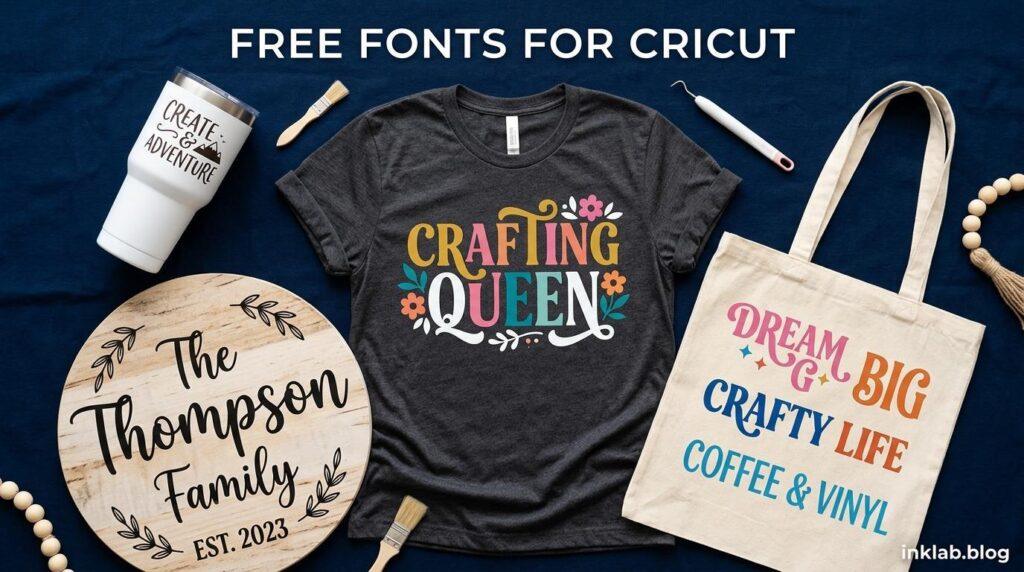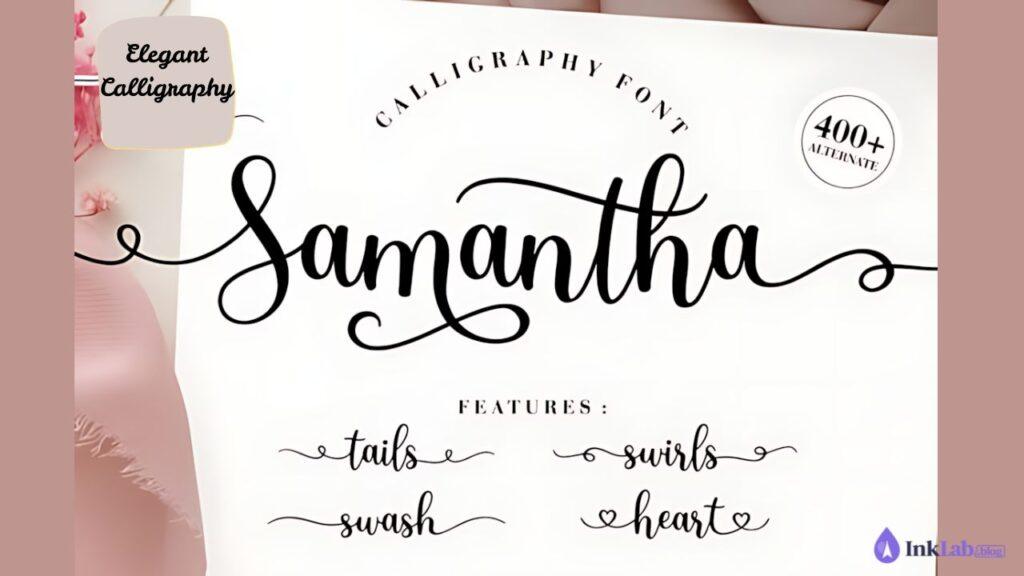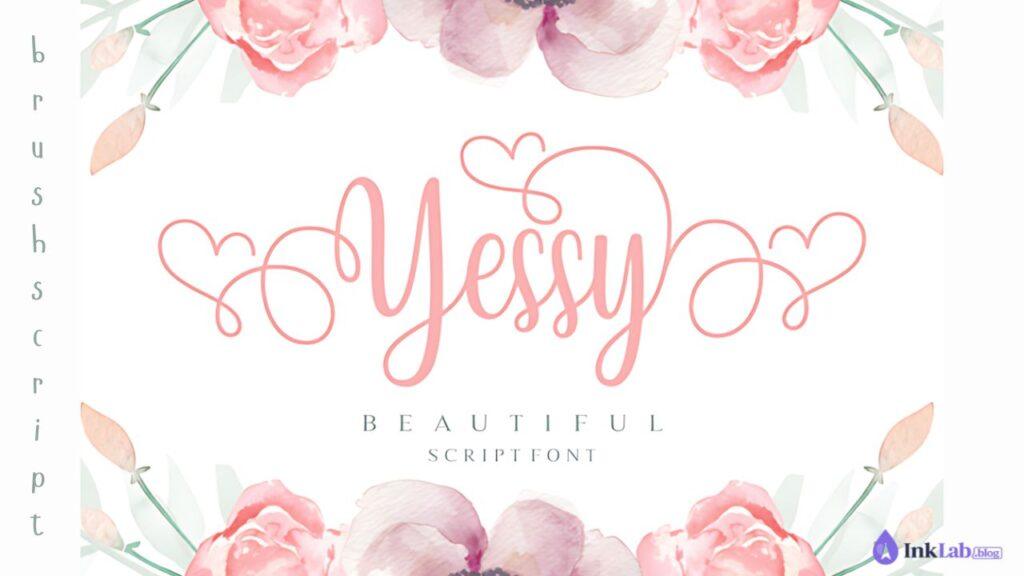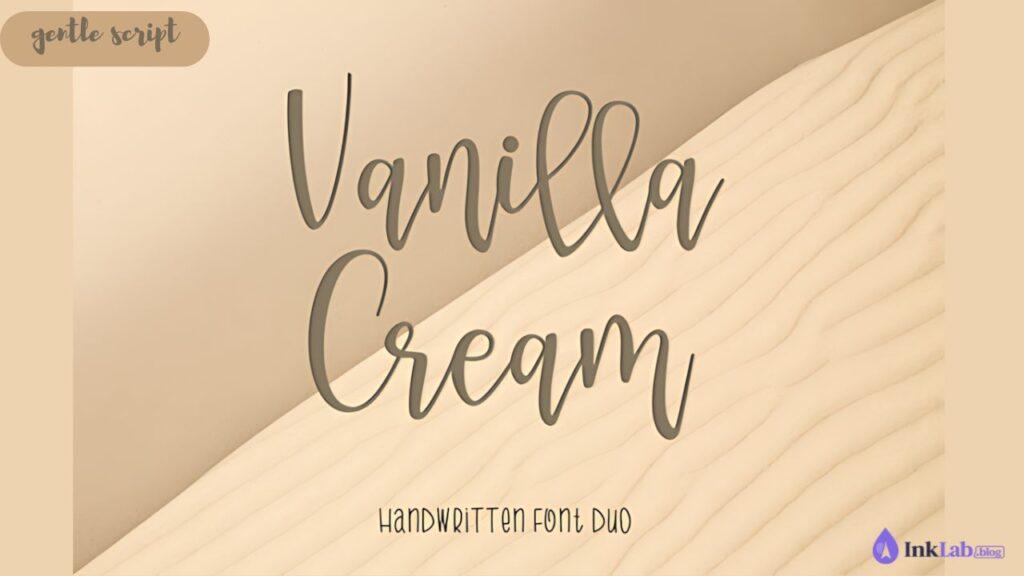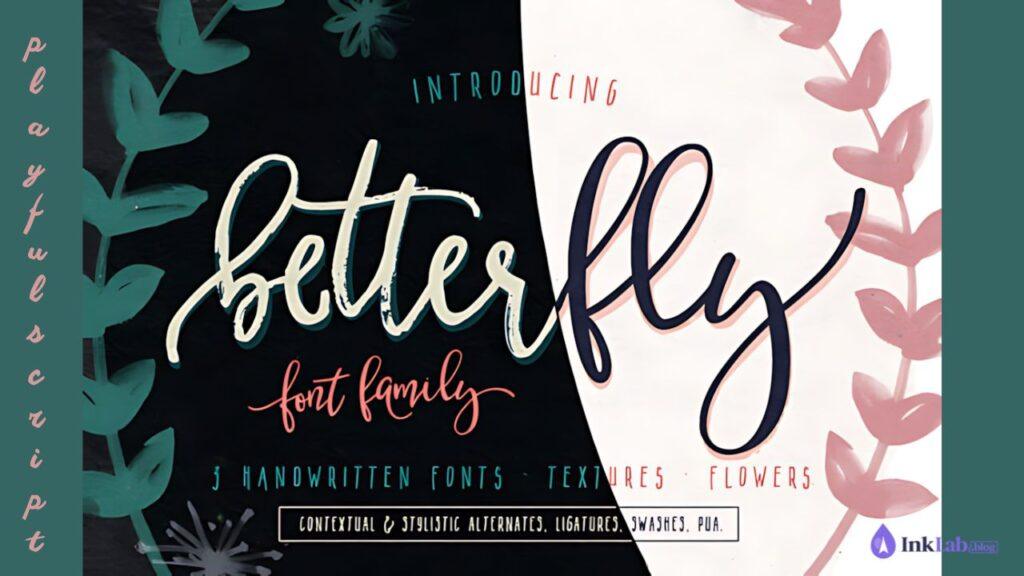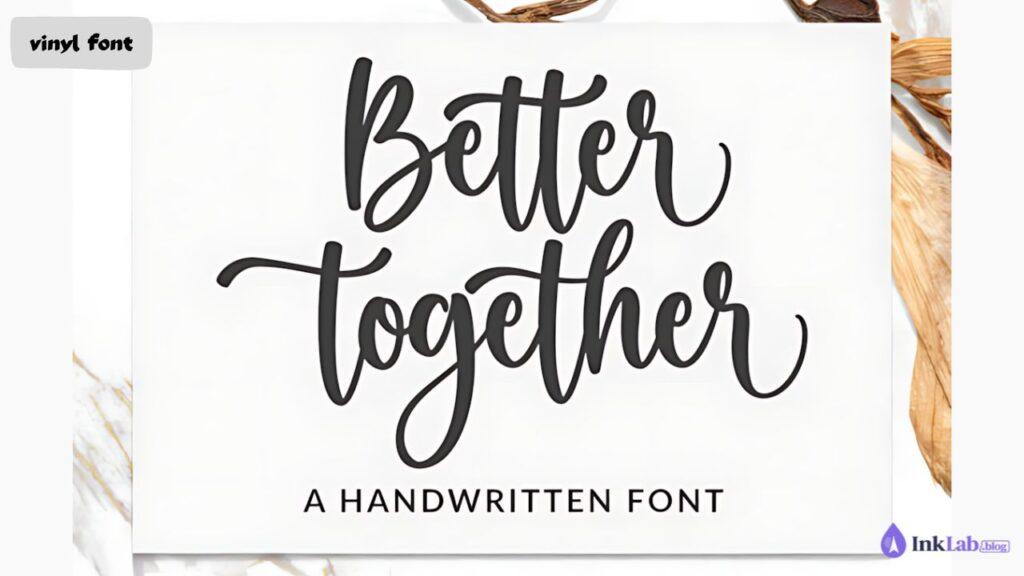
Best Fonts for Cricut: Top 10 Free & Premium Picks
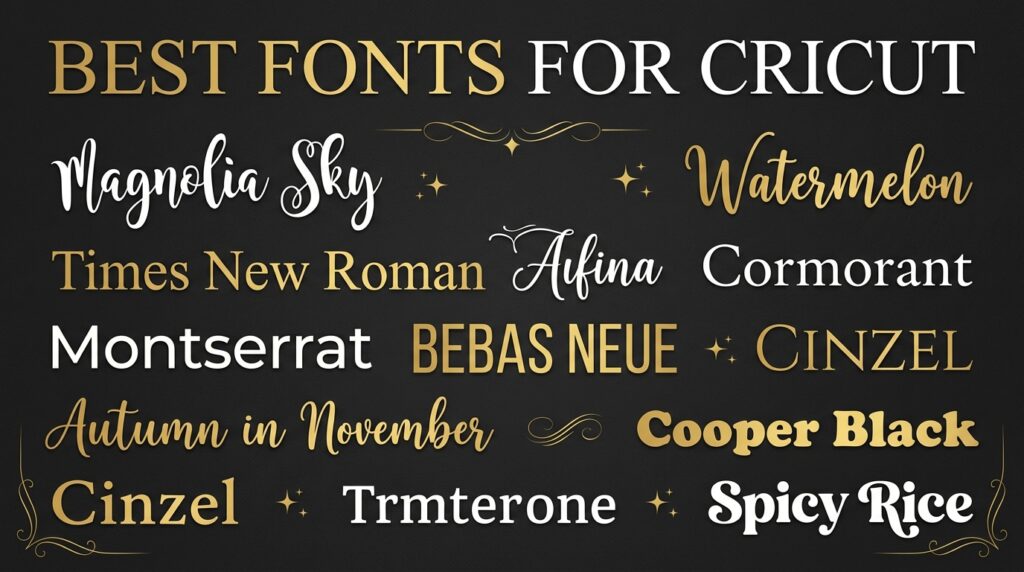
Cricut projects live or die by the font you choose. Whether you’re cutting vinyl, making HTV shirts, or crafting personalized gifts — the right font makes all the difference. Here are the 10 best fonts for Cricut that cut cleanly, weld beautifully, and look amazing on any project.
What Makes a Good Font for Cricut Projects?
Not every font cuts well. The best fonts for Cricut have:
• Thick, consistent strokes — thin hairlines break during cutting and are hard to weed
• Clean paths — Cricut Design Space needs clear vector outlines, not overlapping shapes
• Weld-friendly letterforms — script fonts should connect naturally when welded
Pro tip: For script fonts, always use the Combine > Unite (or Weld) tool in Cricut Design Space to join touching letters into one continuous cut path before cutting.
Top 10 Free Fonts for Cricut
01 · Best Overall Cricut Font
Bebas Neue
Bold all-caps font with clean consistent strokes — cuts perfectly on vinyl and HTV. One of the most popular fonts for Cricut vinyl decals and statement shirts.
02 · Best Script Font
Dancing Script
Friendly connected script — welds beautifully in Cricut Design Space. Perfect for personalized gifts, name designs, and wedding projects.
03 · Best for Home Decor
Montserrat
Clean modern sans-serif — cuts cleanly at any size. Great for wood signs, home decor, and minimalist Cricut projects.
04 · Best Brush Script
Pacifico
Retro brush script with thick strokes — cuts and weeds easily. Popular for beach-themed projects, tote bags, and casual apparel.
05 · Best for Small Cuts
Oswald
Strong condensed font that holds detail at small sizes — great for labels, tags, and detailed Cricut vinyl work where space is limited.
06 · Best Elegant Script
Great Vibes
Flowing calligraphic script — elegant and romantic. Beautiful for wedding signs, monograms, and premium personalized gifts.
07 · Best for Kids Projects
Fredoka One
Rounded friendly font — cuts cleanly and looks fun. Perfect for kids’ items, nursery decor, and cheerful personalized products.
08 · Best Handwritten
Caveat
Casual handwritten font with natural feel — great for quote signs, journaling projects, and anything that needs a personal handmade touch.
09 · Best Bold Display
Playfair Display
Elegant serif with strong presence — beautiful for premium Cricut projects, framed quotes, and anything targeting a sophisticated aesthetic.
10 · Most Versatile
Raleway
Stylish geometric font — works across every Cricut project type. Clean enough for minimalist designs, bold enough for statement pieces.
Best Premium Fonts for Cricut
Premium fonts give your Cricut projects a unique look that stands out. These fonts are optimized for cutting — clean paths, ideal spacing, and stunning results every time.
Premium 01 · Best Script for Cricut
Better Together Font
Premium on CFScriptWeddingHTV
Popular connected script designed with Cricut in mind — letters connect naturally for seamless welding. Perfect for couples’ gifts, wedding signs, and personalized HTV shirts.
Premium 02 · Best Calligraphy
Samantha Calligraphy Font
Premium on CFCalligraphyElegantMonograms
Elegant calligraphy script with thick downstrokes and thin upstrokes — stunning on premium Cricut projects. Ideal for wedding invitations, monograms, and high-end personalized gifts.
Premium 03 · Best Playful Script
BetterFly Font
Premium on CFBrush ScriptKidsGifts
Playful brush script with personality — great for personalized kids’ items, fun gifts, and casual HTV projects. Cuts cleanly with thick consistent strokes.
What font size works best for Cricut vinyl?
For vinyl decals, 1 inch minimum letter height is recommended. For HTV shirts, 2-3 inches works best. Smaller sizes require thicker fonts — avoid thin scripts below 1 inch.